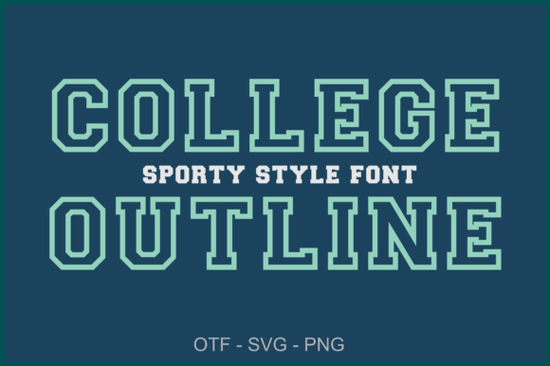
If you're working on a project that needs a bold, sporty typeface with clean lines, the College Outline Font is worth a close look. It's a varsity-style outlined typeface with sharp edges and structured geometry that works well for school logos, team apparel, and vintage-inspired designs. You can find it on College Outline Font through Creative Fabrica. Below, I'll walk through what makes this font useful, where it fits best, and how to get the most out of it in your projects.
What Makes College Outline Font Stand Out?
Not every outlined font works well at both large and small sizes. What sets this one apart is its balanced weight and readability. The outlines are thick enough to hold their shape when scaled up for banners or signage, but the clean geometry keeps things legible even on smaller prints like stickers or social media graphics.
Here's what you're getting:
- Bold, structured letterforms with a classic American varsity feel
- Outlined style that adds depth without overwhelming other design elements
- Sharp edges that give a professional, confident look
Who Is This Font Designed For?
This typeface is built with a specific audience in mind. If any of the following describe you, it's a solid match:
- Sports teams and coaches Great for jerseys, team banners, and spirit wear
- Print-on-demand sellers Works perfectly on t-shirts, hoodies, and mugs
- School event planners Think homecoming posters, fundraiser flyers, and club logos
- Small business owners Especially those in fitness, athletics, or outdoor recreation
- DIY crafters Use it for iron-on vinyl projects, wall decals, or scrapbook pages
If you're pairing it with another typeface for body text, a clean slab serif works nicely alongside it. Fonts like a bold slab serif with strong weight complement the outlined style without competing for attention.
Where Does College Outline Font Work Best?
The outlined design gives you flexibility that solid block fonts don't always offer. Here are some practical use cases:
- Apparel design The outline style looks especially good on dark fabric. The letter shapes pop without needing a filled background.
- Digital graphics Social media headers, YouTube thumbnails, and email banners all benefit from the bold, sporty look.
- Signage and posters The structured geometry reads well from a distance, which is exactly what you need for event signage.
- Vintage-style projects Pair it with distressed textures or retro color palettes for an old-school athletic aesthetic.
For projects that need both an outlined and filled version, you might also consider similar slab serif font options from Creative Fabrica's collection to build a complete type system.
How Do You Use Outline Fonts Without Losing Readability?
Outline fonts look great, but there are a few things to keep in mind so your designs stay sharp:
- Watch your background. Outlined text can get lost on busy or patterned backgrounds. Use a solid or subtly textured backdrop.
- Mind the stroke weight. If you're scaling the font down significantly, the outlines may thin out. Test at your final output size before committing.
- Pair wisely. Use a simple sans-serif or slab serif for any supporting text. Too many decorative fonts in one design creates visual clutter.
- Use color intentionally. A single bold color inside the outline works well. Multi-color fills can look busy if the design is already complex.
According to Google Fonts Knowledge, outlined typefaces work best when they serve as the focal point of a layout rather than competing with other decorative elements. Keep the rest of your design simple and let the font do the heavy lifting.